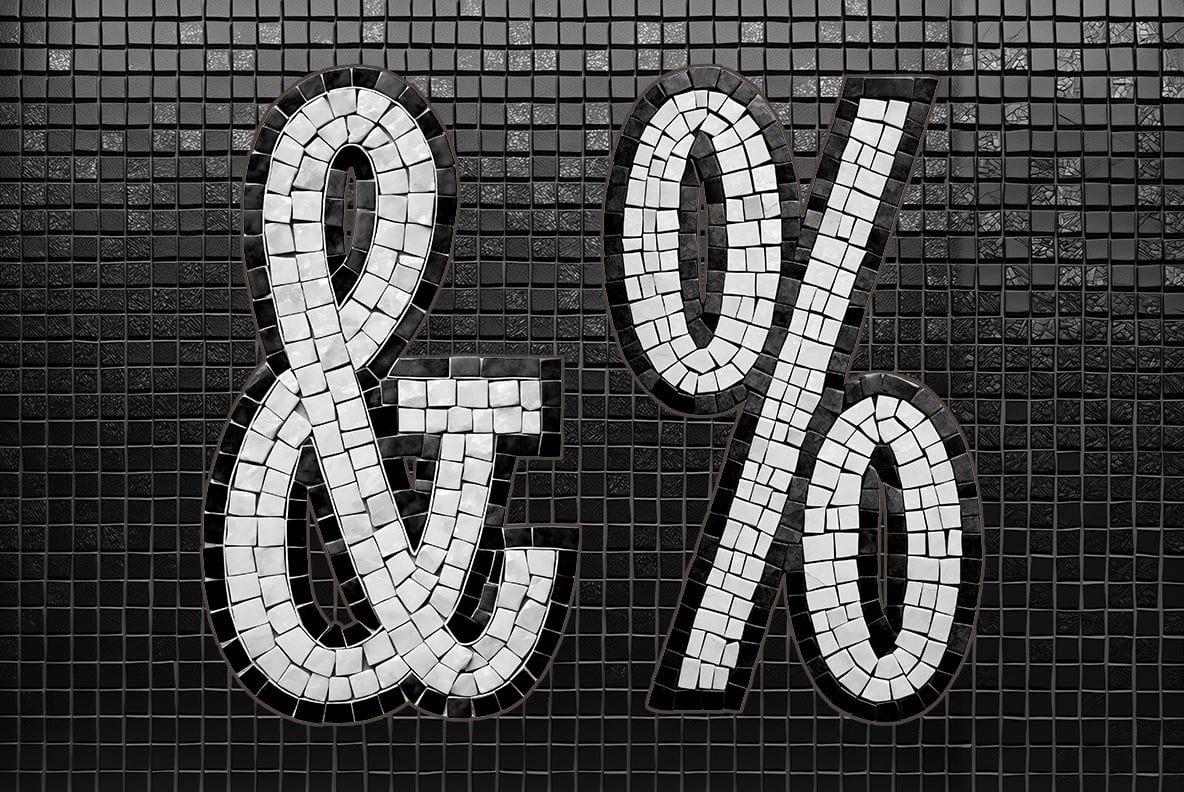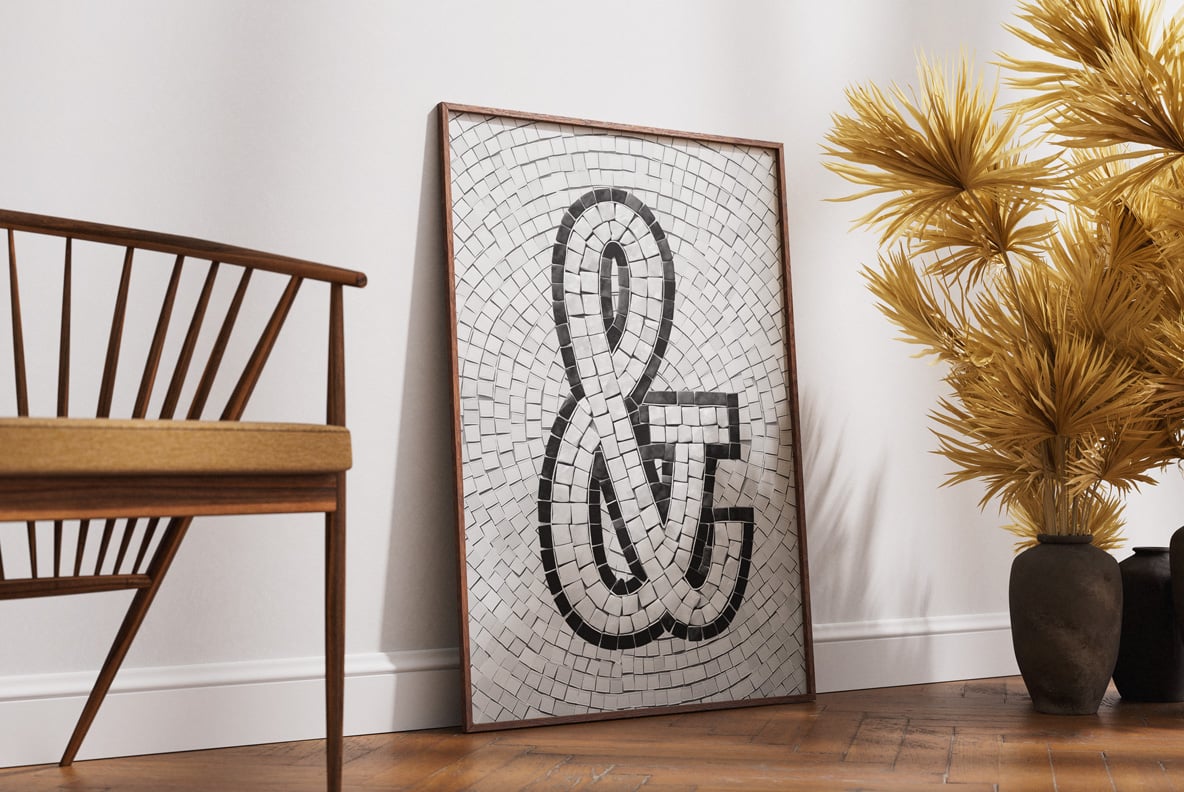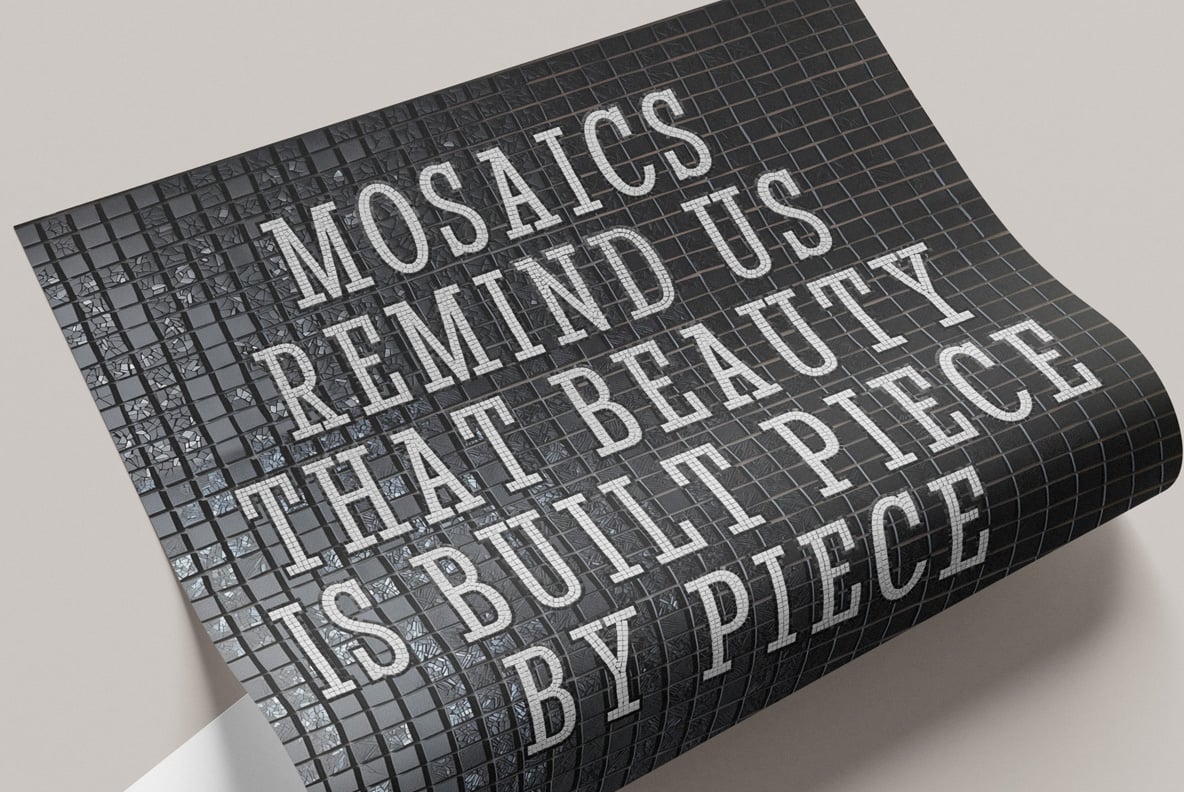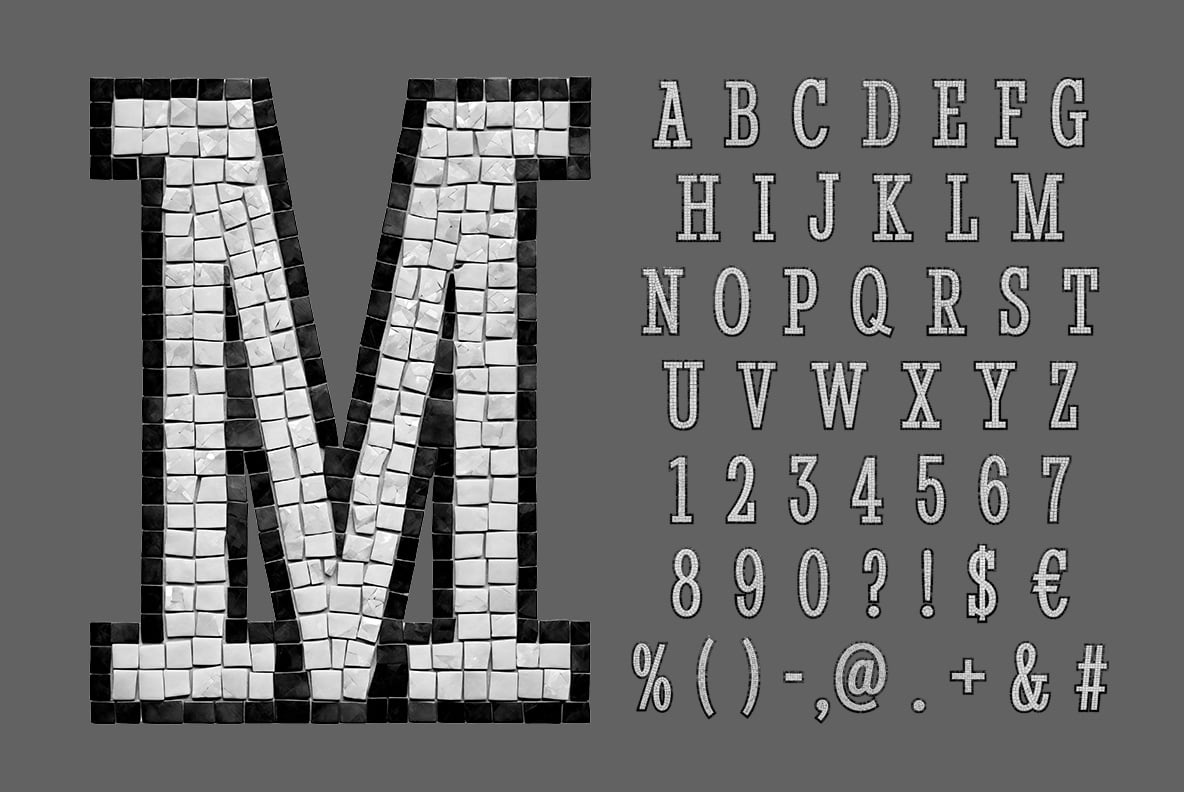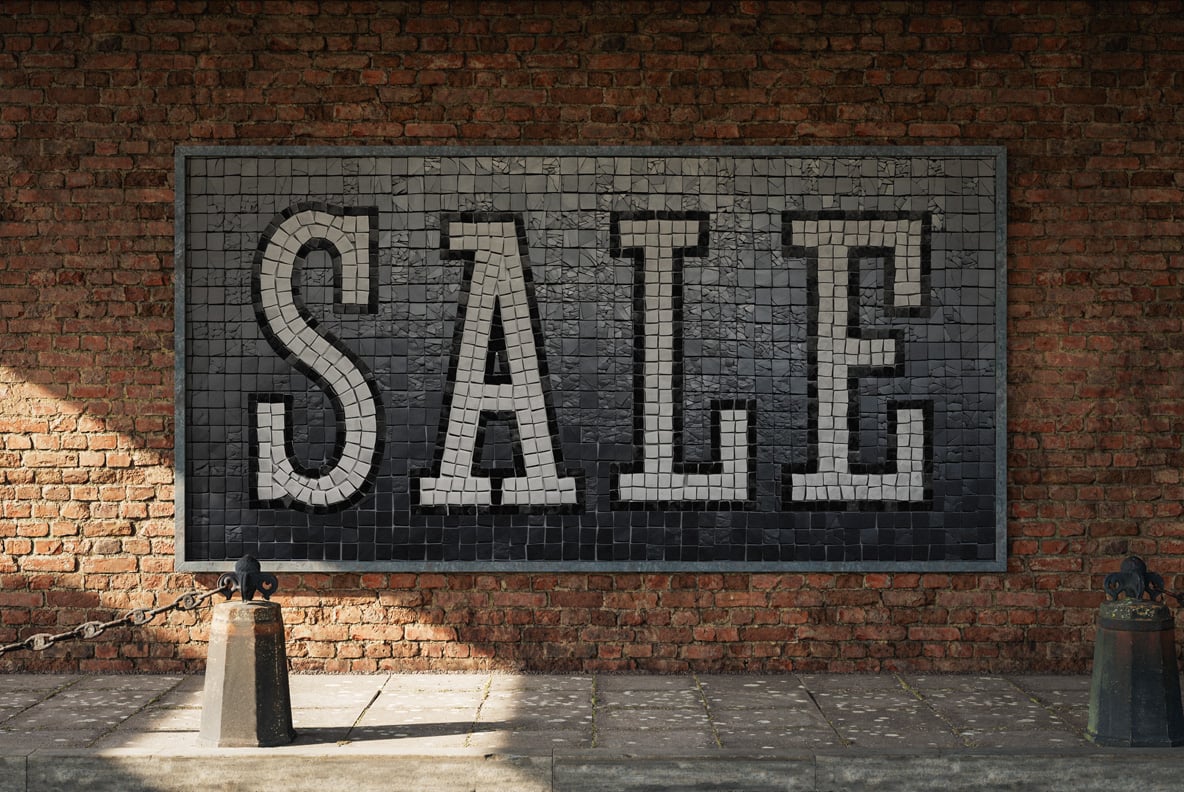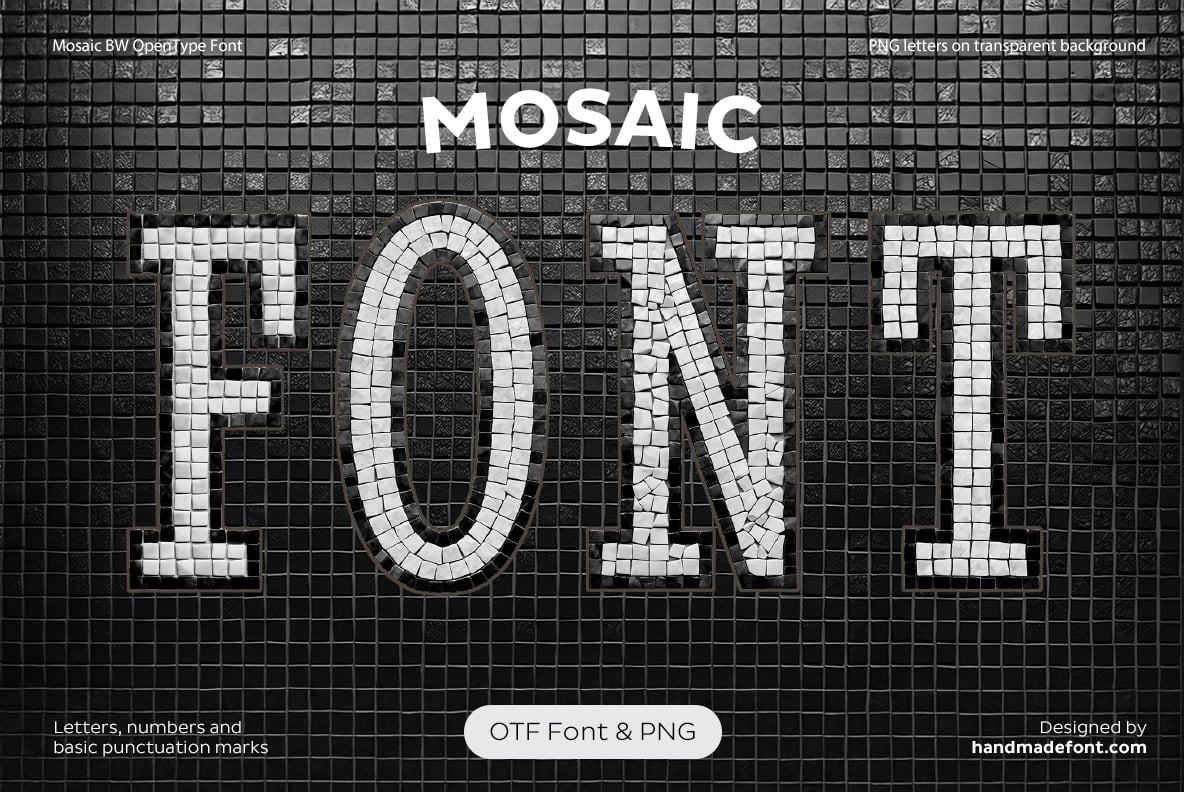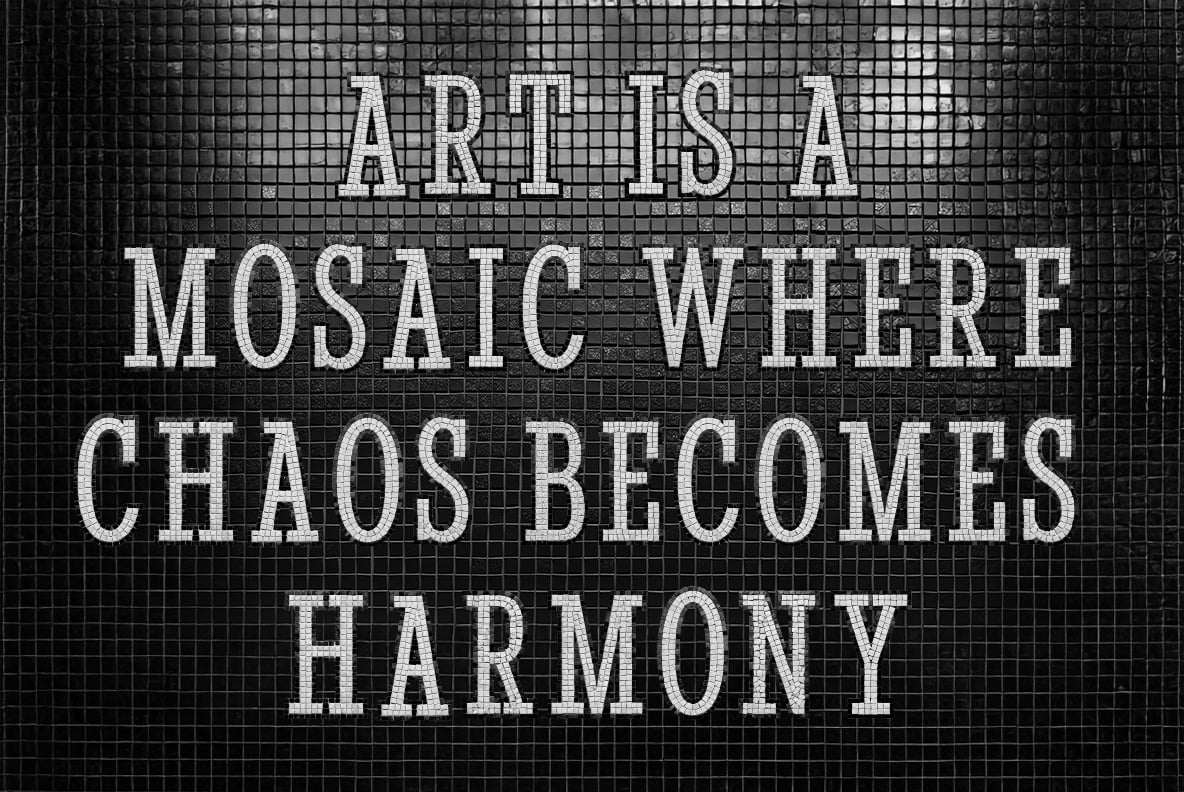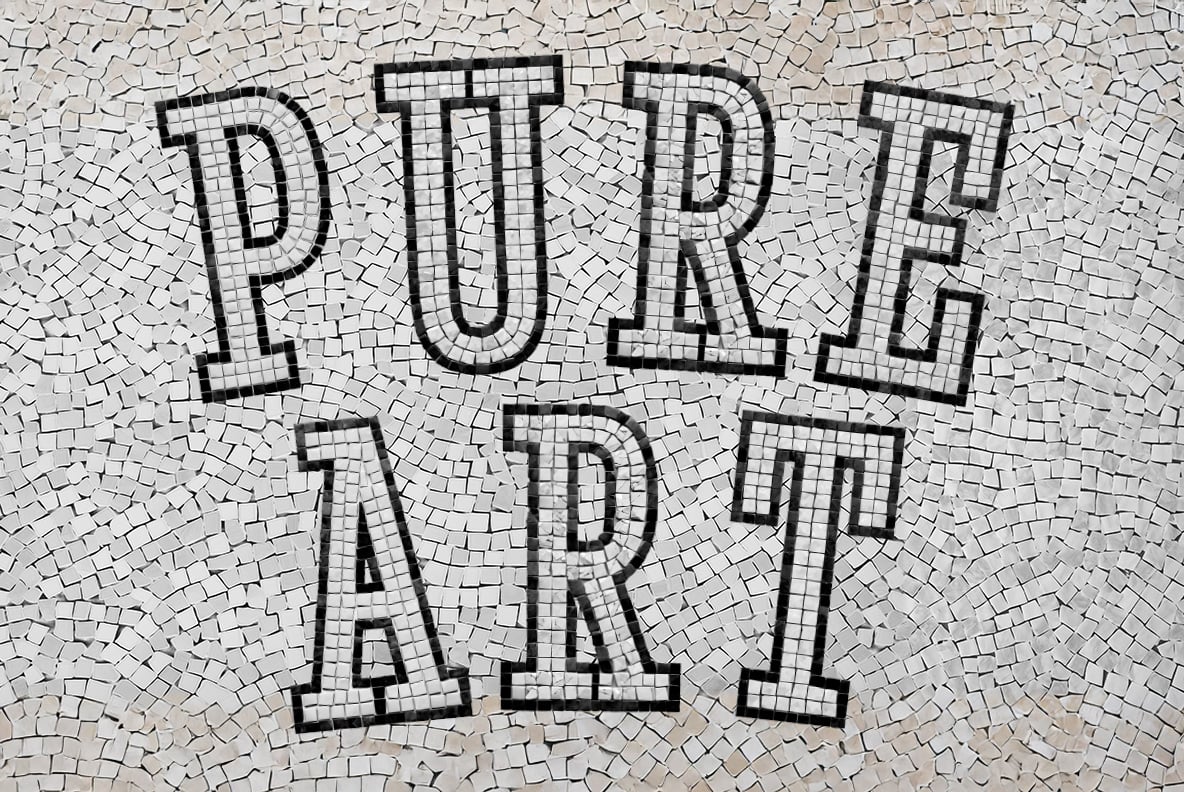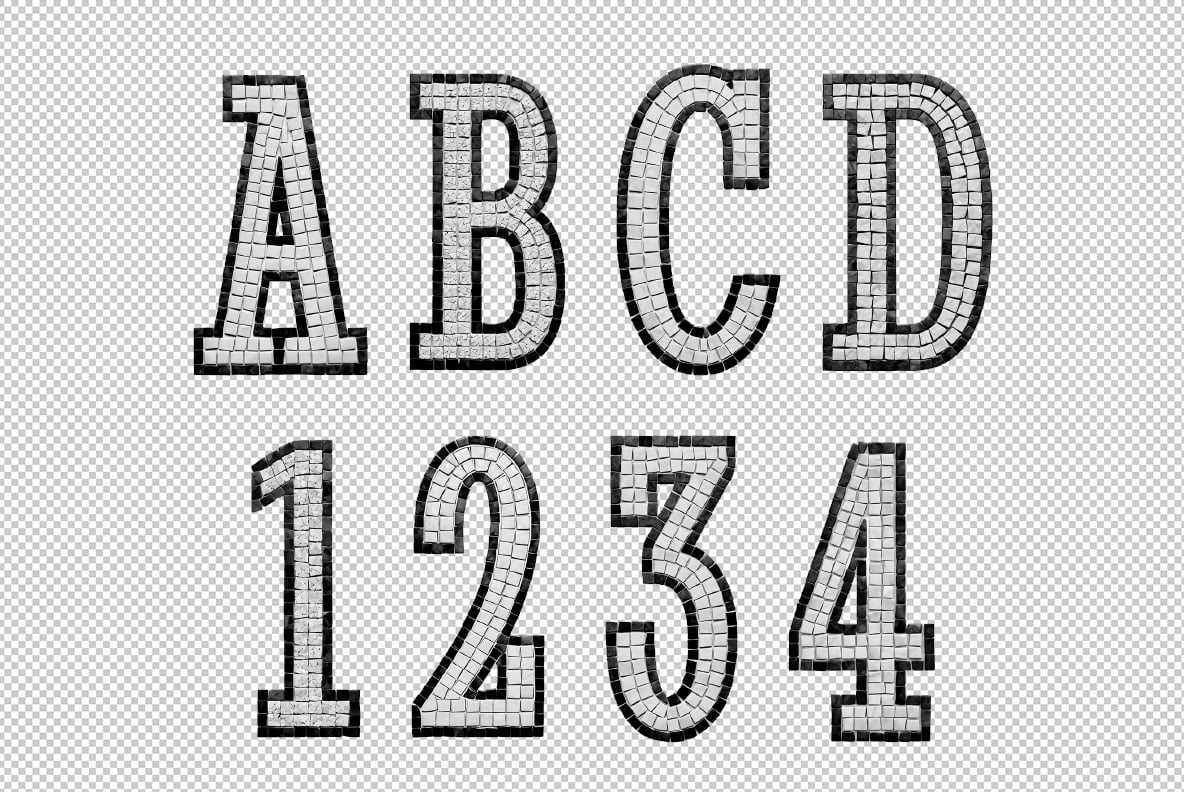
Mosaic BW Font
Once crafted from timeless patterns, Mosaic BW Font transforms the alphabet into a stunning mosaic masterpiece. Each letter is intricately designed using small black and white stones, forming a perfect harmony of contrast and texture. This unique font evokes the artistry of ancient mosaics, combining geometric precision with organic beauty. Ideal for bold, creative projects, it brings a touch of sophistication to designs, blending classic stonework with modern typography for an unforgettable visual impact.
A high definition OpenType Font. Contains uppercase characters, numerals and basic punctuation. (Draw height roughly 800 pixels). All letters and glyphs that comprises this font you can see on the preview.
Others : ! ? - . ' $ € % & #